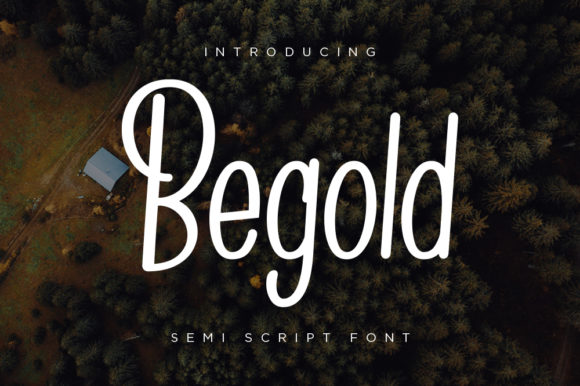
Begold Font
Behold, Begold: The Enchanting Script Font That Unleashes Your Inner Artist
Journey into a world of captivating elegance and timeless beauty with Begold, the remarkable script font that will transform your creative visions into breathtaking realities. Created by thetrendingfonts, Begold is more than just a font; it's a captivating symphony of flowing lines, delicate curves, and enchanting characters that will leave you spellbound.
Unleash Your Unique Style with Begold
With Begold, your creative projects will transcend the ordinary and enter the realm of the extraordinary. Its versatility knows no bounds, gracefully adapting to a myriad of design endeavors, from heartfelt invitations and alluring branding to captivating social media posts and awe-inspiring marketing materials.
Begold's captivating charm lies in its intricate details, the subtle nuances that whisper of a bygone era. Each letter, meticulously crafted, dances across the page like a ballet of elegance, captivating the senses and leaving a trail of visual enchantment. Indulge in the beauty of its flowing serifs, the graceful swashes that add a touch of whimsy, and the perfectly balanced proportions that create a harmonious visual experience.
Ignite Your Passion with Begold
Begold is not just a font; it's a gateway to a world of boundless creativity, a catalyst for igniting your passion and unleashing your inner artist. Its versatility empowers you to weave your own tale of visual enchantment, to transport your audience to a realm of timeless elegance and ethereal beauty.
With Begold as your creative companion, you'll discover a newfound joy in the art of design, a sense of fulfillment that comes from transforming your visions into tangible masterpieces. Whether you're a seasoned designer or just beginning your creative journey, Begold will guide you, inspire you, and elevate your work to new heights of artistry.
Embrace the Magic of Begold
Step into a world of enchanting beauty and limitless possibilities with Begold. Let its flowing lines and delicate curves captivate your senses, igniting your imagination and inspiring you to create masterpieces that will leave an indelible mark on the world.